If you’re a designer, freelancer, or brand owner, you’ve probably felt it: that mix of excitement and fear when trying a new AI tool. It’s powerful. It’s fast. And sometimes… it feels too good to be true.
When AI can generate shapes, strokes, and even full typefaces in seconds, the challenge of typeface ideation using AI becomes clear — where does your originality fit in?
That’s the core question behind typeface ideation using AI—how to use innovation without losing integrity. For creatives who value artistry as much as speed, this isn’t just a workflow shift; it’s an ethical awakening.
AI isn’t here to replace designers. It’s here to enhance ideation—to help you explore directions faster, refine details smarter, and break creative blocks effortlessly. But as AI typography grows, so does the risk of style theft and copyright infringement.
Tools like Adobe Firefly are already implementing “commercially safe” systems trained on licensed data—a step toward a transparent creative future.
Still, ethical responsibility lies in the designer’s hands.
Typeface ideation using AI means treating machines as collaborators, not copycats.
Every strong font starts with a story, not a prompt. When you feed AI your vision—your emotions, references, and tone—it becomes a co-creator, not a thief. Here’s how to master the process responsibly:
Here are five fonts from Figuree Studio that reflect the perfect balance of innovation and authenticity—fonts born from curiosity, not cloning.
Neobique – Modern Display Serif
A futuristic serif that merges digital precision with timeless grace. Perfect for AI-driven branding projects that still crave a human touch.
Bygen – Modern Display Font
Geometry meets innovation. Its clean forms make it ideal for tech startups or digital creators experimenting with AI identity systems.
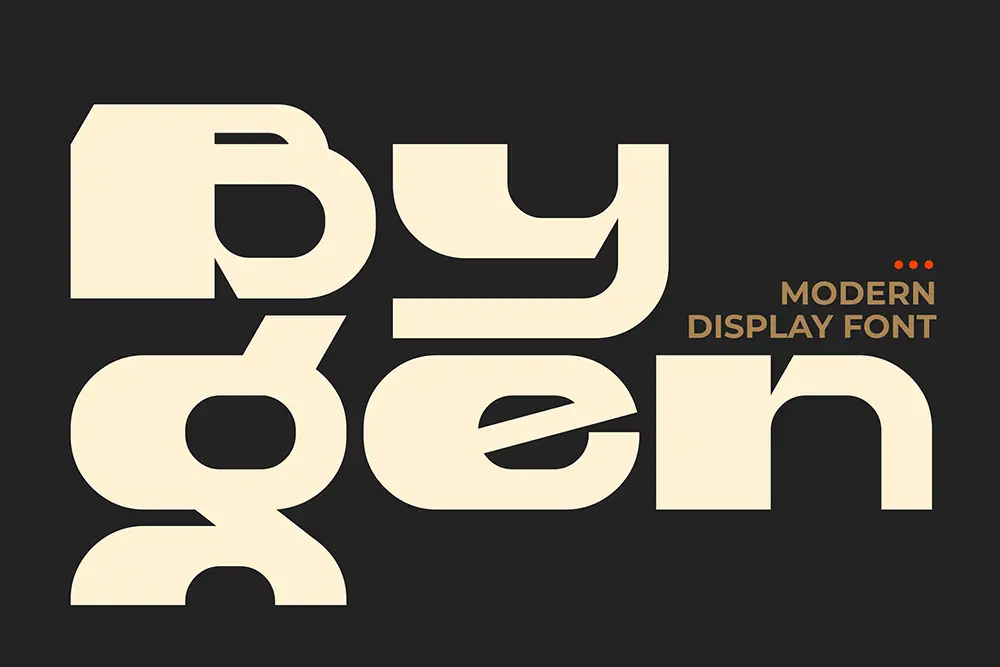
Bolde – Powerful Sans Serif
If AI had confidence, it would look like Bolde. Strong, minimal, and structured for legibility across digital platforms.
Ignazio – Modern Sans Serif
Reliable and modern, Ignazio shows that professionalism doesn’t have to mean boring—especially in futuristic branding.
Gued – Geometric Sans Serif Font
This one’s for visionaries. A perfect example of precision-driven design that stays distinctly human.
Let’s be honest—AI can’t feel inspiration, but you can.
When you create fonts, you’re not just shaping letters; you’re designing voice. A good typeface whispers a story before a single word is read.
That’s why typeface ideation using AI isn’t about perfection. It’s about perspective. Use AI to amplify your creative intuition, not erase it.
“Technology is a useful servant but a dangerous master.” — Christian Lous Lange
At Figuree Studio, we’ve realized that tools don’t create beauty—intent does.
AI can map out possibilities, but it’s your moral compass that shapes meaning.
Designers who respect process over shortcuts end up building not just typefaces, but trust.
When you think ethically, your audience feels it.
If you ever wonder whether your design crosses a line, that doubt is already your integrity speaking—listen to it.
Honesty in creation leads to longevity in branding. The same applies to font licensing.
Ethics and creativity aren’t opposites—they’re allies.
Designers who prioritize integrity don’t just make fonts; they make reputations.
So the next time you use typeface ideation using AI, don’t ask, “What can AI make for me?”
Ask, “What truth can I express with it?”
That’s how timeless fonts are born—through curiosity guided by conscience.
Don’t let shortcuts steal your originality.
Design boldly, experiment wisely, and build your next font the right way.
Because real innovation doesn’t imitate—it illuminates.